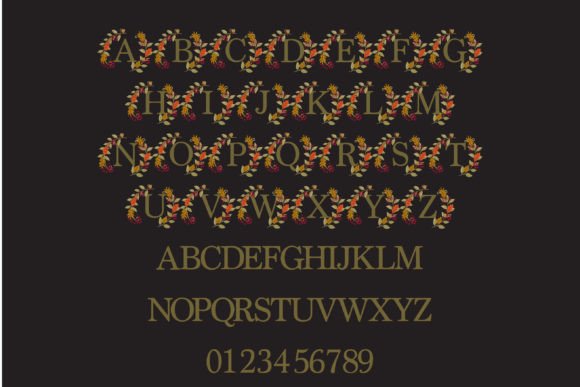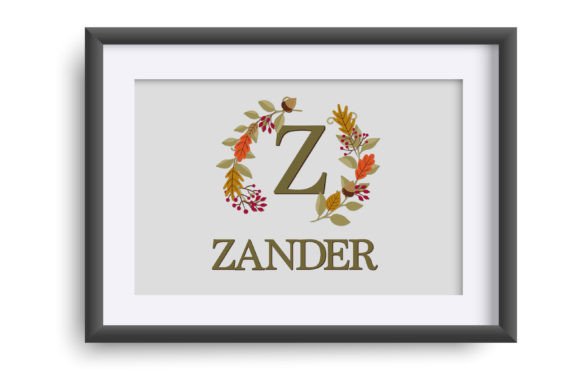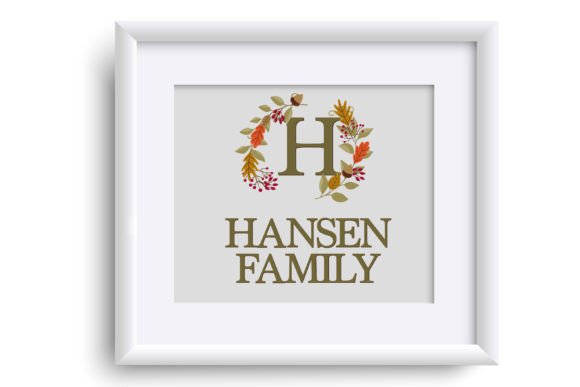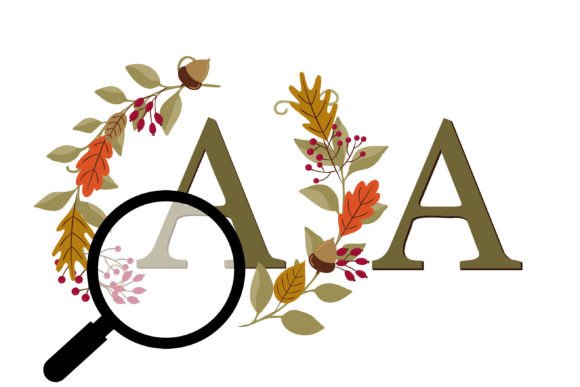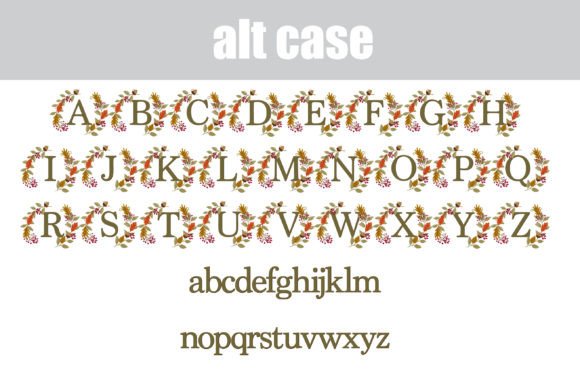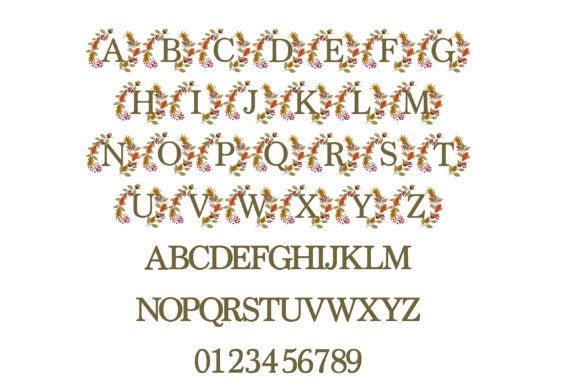
Gathering Font: Elevate Your Designs with a Beautiful Fall Floral Monogram
Are you looking for a unique and eye-catching font to add a touch of personality to your designs? Look no further than the Gathering Font, a stunning full-color monogram font that features serif lettering surrounded by a beautiful fall floral wreath. In this article, we’ll take a closer look at the features and benefits of this gorgeous font, and explore how you can use it to elevate your designs.
What is Gathering Font?
Gathering Font is a one-of-a-kind, full-color monogram font that combines classic serif lettering with a beautiful fall floral wreath. The uppercase letters feature a stunning floral design, while the lowercase letters are simple and elegant without the florals. But that’s not all – this font also comes with an alternative case that offers additional colors, which can be accessed through your system or Silhouette’s glyph map.
Key Features of Gathering Font
• Full-color monogram font: Gathering Font features a unique full-color design that will make your designs stand out.
• Serif lettering: The font features classic serif lettering, perfect for adding a touch of elegance to your designs.
• Fall floral wreath: The uppercase letters are surrounded by a beautiful fall floral wreath, adding a seasonal touch to your designs.
• Alternative case: The font comes with an alternative case that offers additional colors, giving you even more design options.
Benefits of Using Gathering Font
Gathering Font offers a range of benefits for designers and crafters, including:
• Add a touch of personality: With its unique full-color design, Gathering Font is the perfect way to add a touch of personality to your designs.
• Seasonal designs: The fall floral wreath makes this font perfect for seasonal designs, such as autumn-themed crafts, invitations, and more.
• Elegant and sophisticated: The serif lettering and floral design give Gathering Font an elegant and sophisticated feel, making it perfect for luxury brands and high-end designs.
• Versatile: Gathering Font can be used in a range of design projects, from paper crafting to digital designs.
Tips for Using Gathering Font
Here are some tips for getting the most out of Gathering Font:
• Experiment with colors: With its alternative case and additional colors, don’t be afraid to experiment with different color combinations to find the perfect look for your design.
• Pair with complementary fonts: Pair Gathering Font with complementary fonts to create a unique and visually appealing design.
• Use in seasonal designs: Take advantage of the font’s seasonal design and use it in autumn-themed crafts, invitations, and more.
Gathering Font is a stunning full-color monogram font that offers a unique and eye-catching way to add personality to your designs. With its elegant serif lettering, beautiful fall floral wreath, and alternative case with additional colors, this font is perfect for designers and crafters looking to elevate their designs. Whether you’re creating seasonal designs, luxury brands, or simply want to add a touch of elegance to your projects, Gathering Font is an excellent choice.